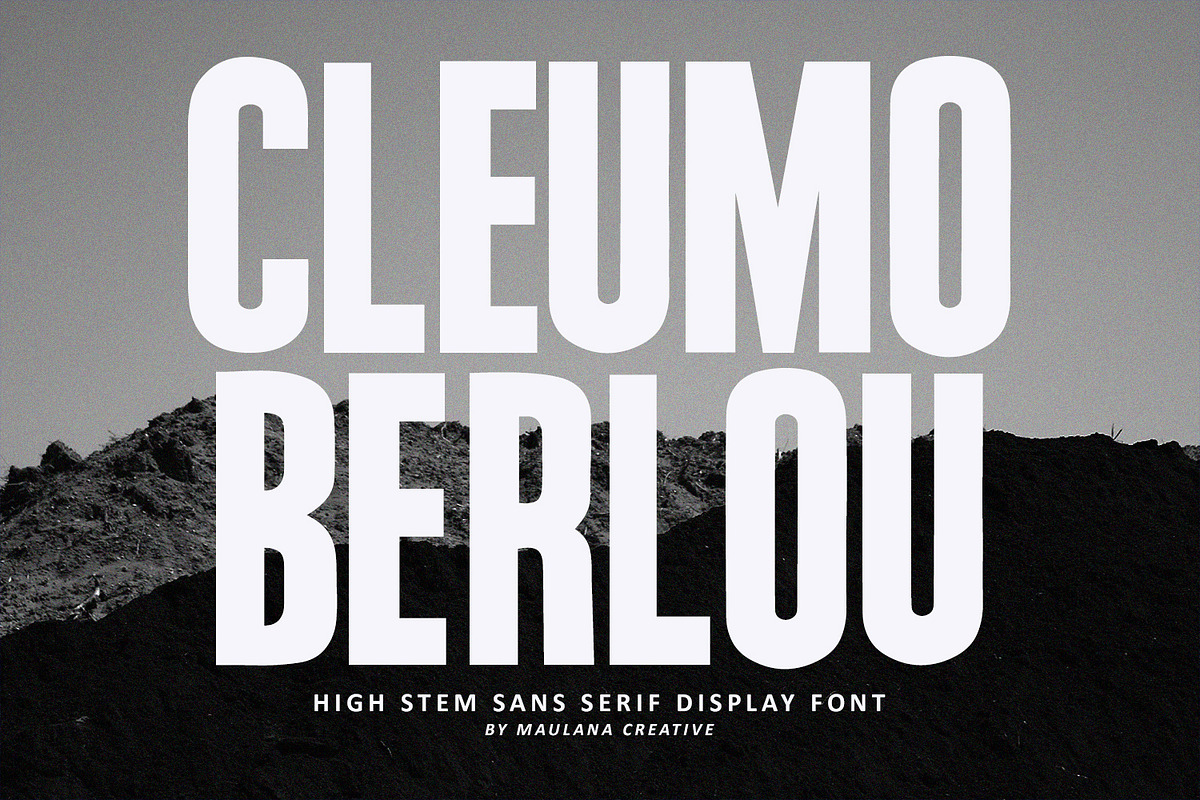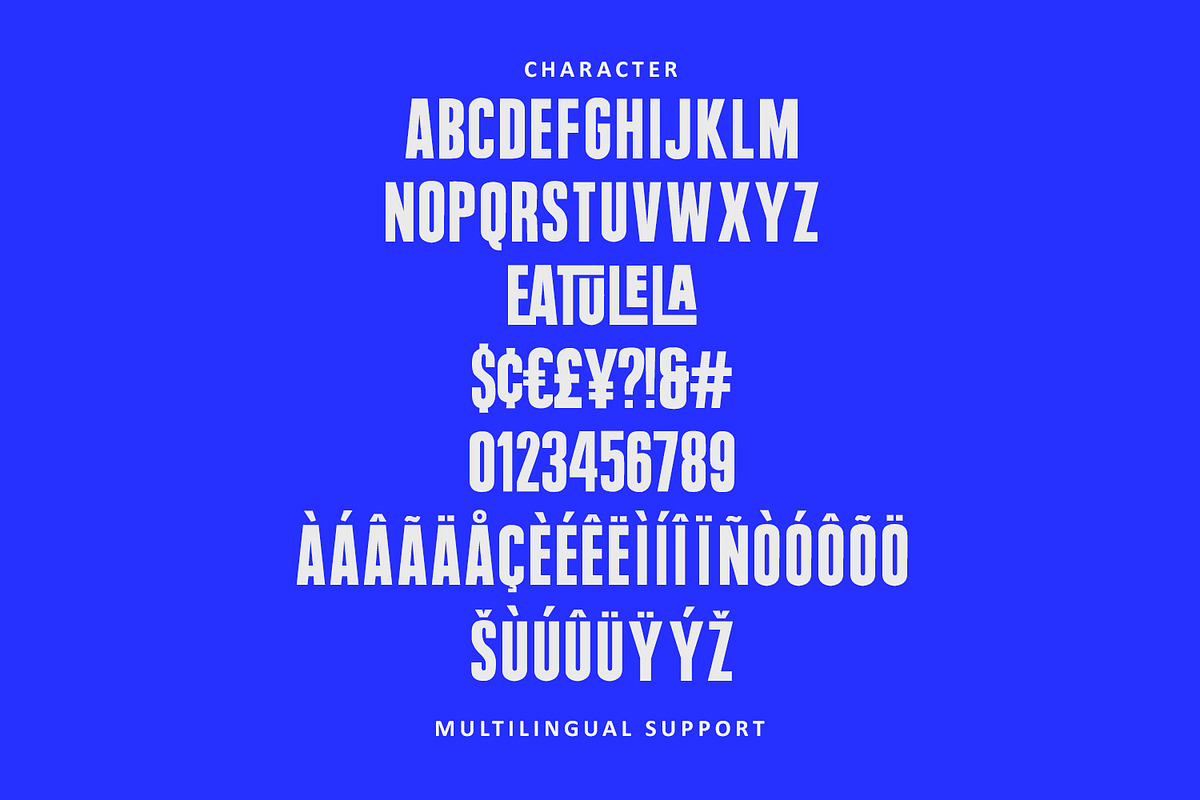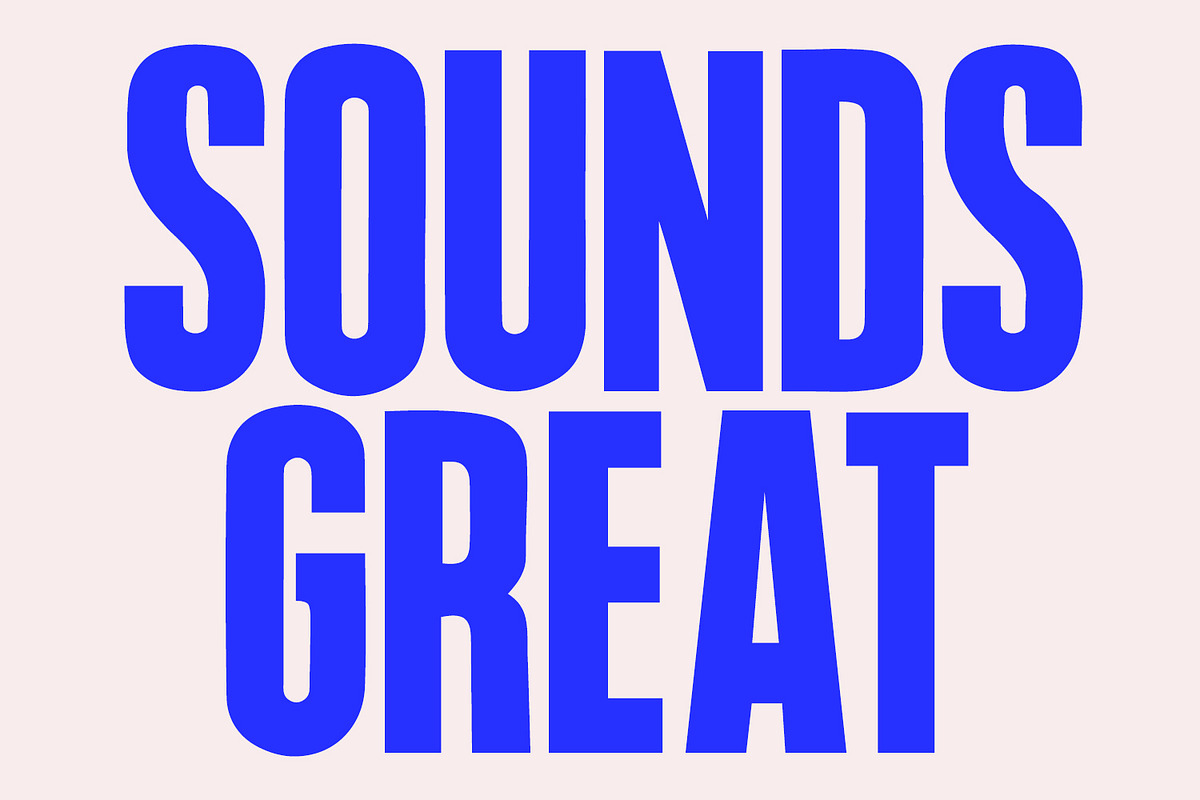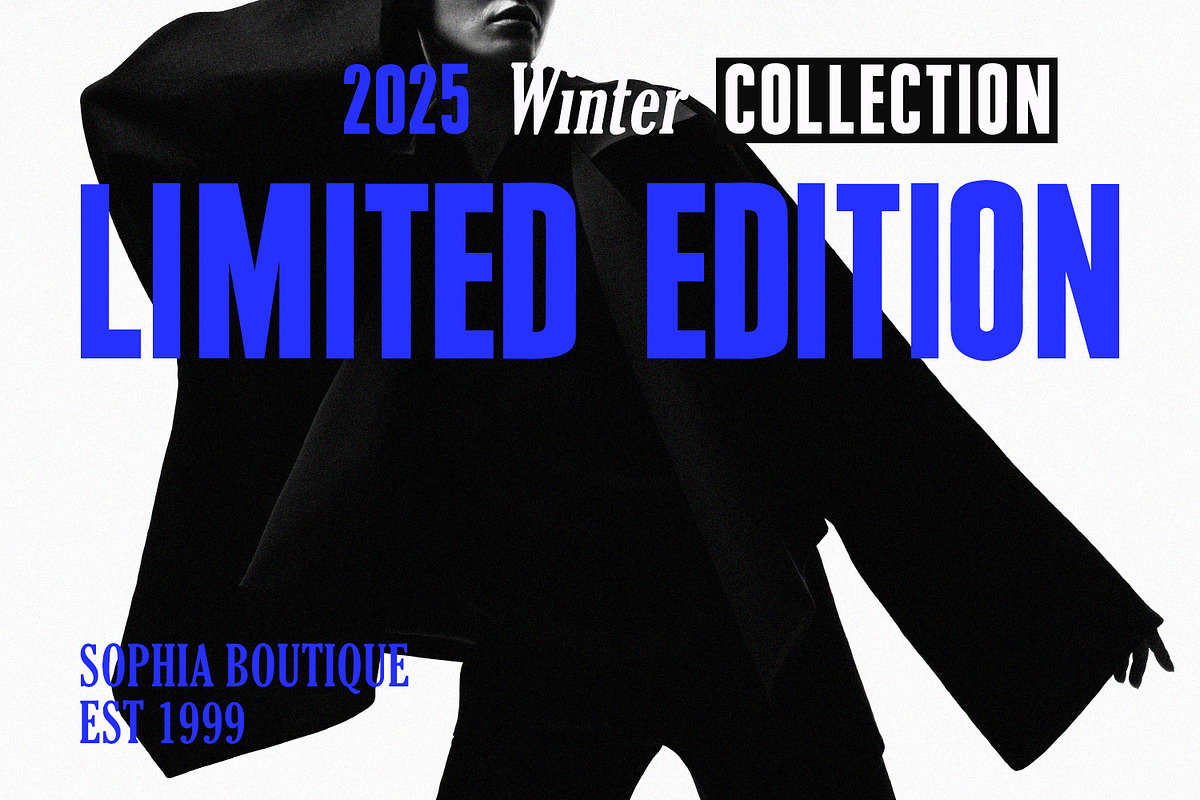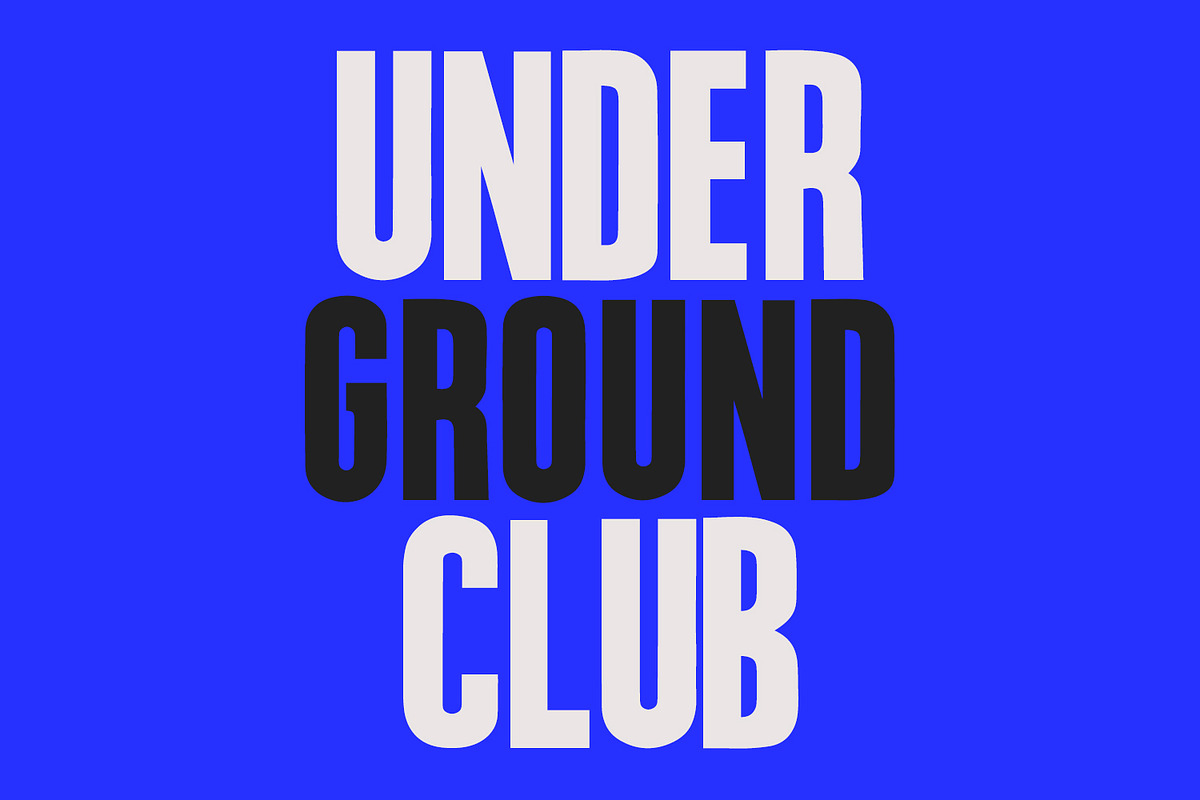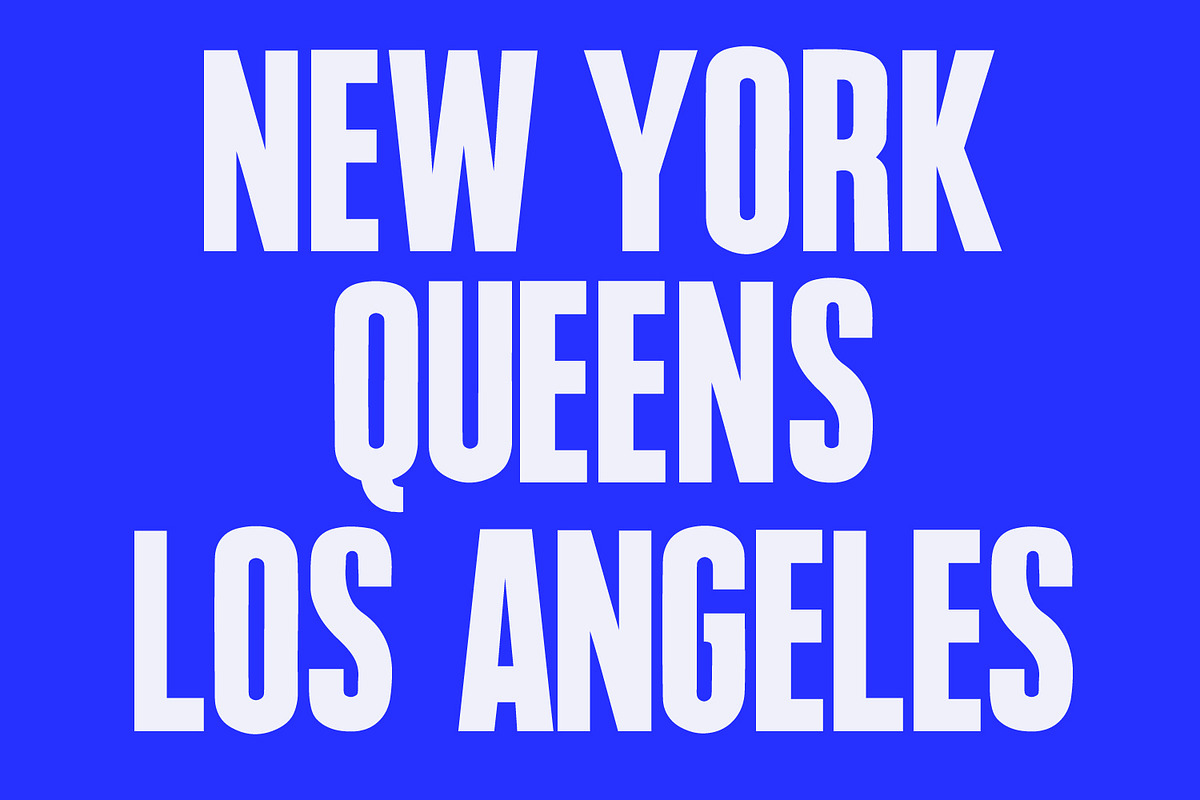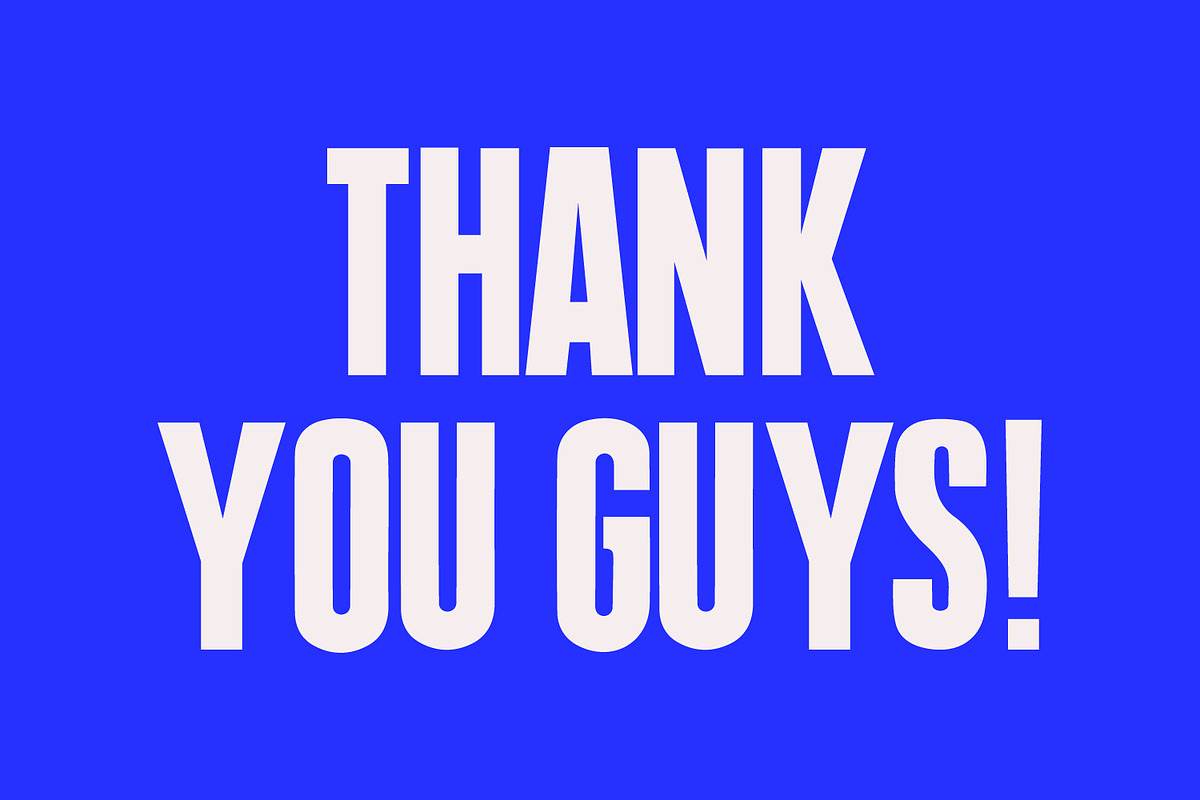
Cleumo Berlou High Stem Sans Font
Elevate your designs with the towering elegance of Cleumo Berlou.
Cleumo Berlou is a sophisticated High-Stem Sans Serif Display Font designed to make a bold, vertical statement. Characterized by its condensed proportions and uniquely elevated "waistline" (high stems), this typeface brings a fresh, modern perspective to classic industrial typography.
Whether you are working on a high-end fashion magazine, a minimalist brand identity, or an impactful street style poster, Cleumo Berlou provides a perfect balance of authority and style. Its tall, slender anatomy ensures maximum readability while occupying minimal horizontal space, making it ideal for tight layouts and dramatic headlines.
- Unique High-Stem Aesthetic: A distinct look that sets your work apart from standard sans serifs.
- Condensed & Impactful: Perfect for massive headlines and bold editorial layouts.
- Ligatures: Includes unique character pairings to add a custom touch to your typography.
- Full Multilingual Support: Ready for global projects with a wide range of accented characters.
- Versatile Application: Looks stunning in solid, outline, or experimental color palettes.
- Fashion & Beauty Branding: High-contrast layouts and luxury logos.
- Editorial Design: Magazine covers, headers, and pull quotes.
- Poster Art: Movie posters, event flyers, and protest art.
- Social Media: Eye-catching Instagram quotes and YouTube thumbnails.
- Modern Packaging: Sleek, minimalist product labels.